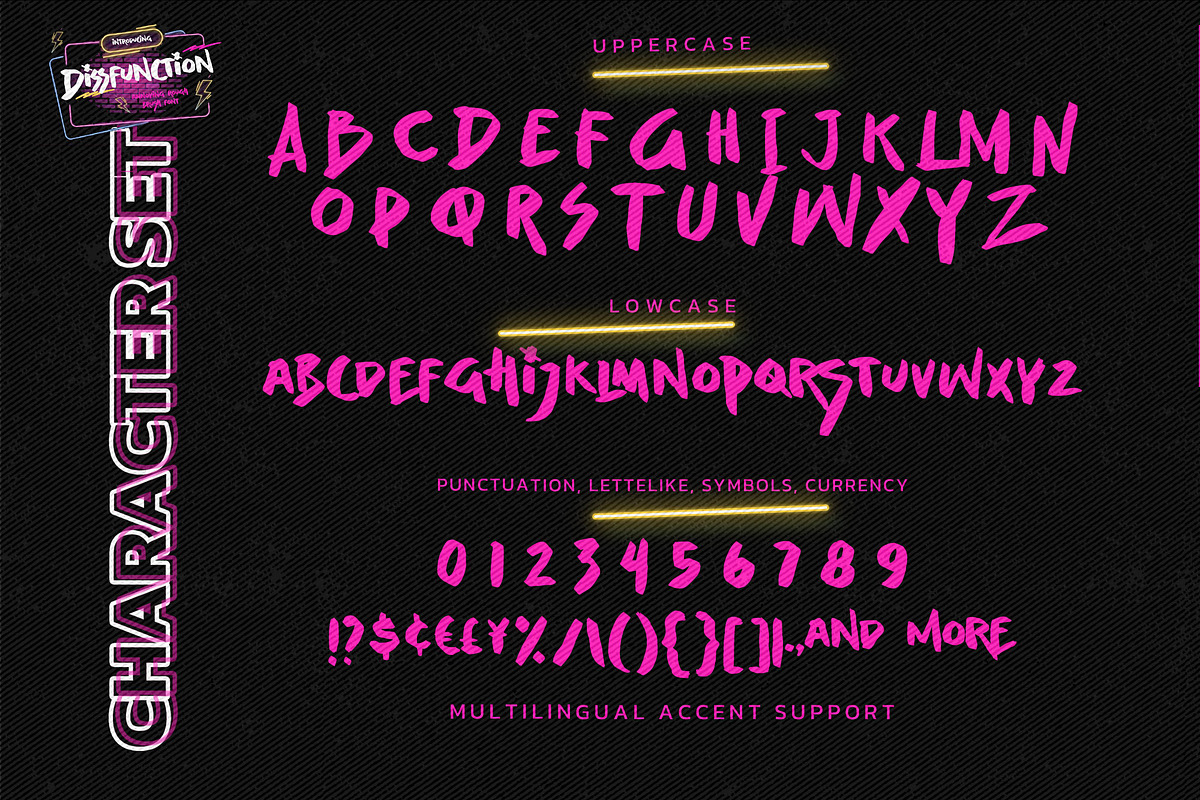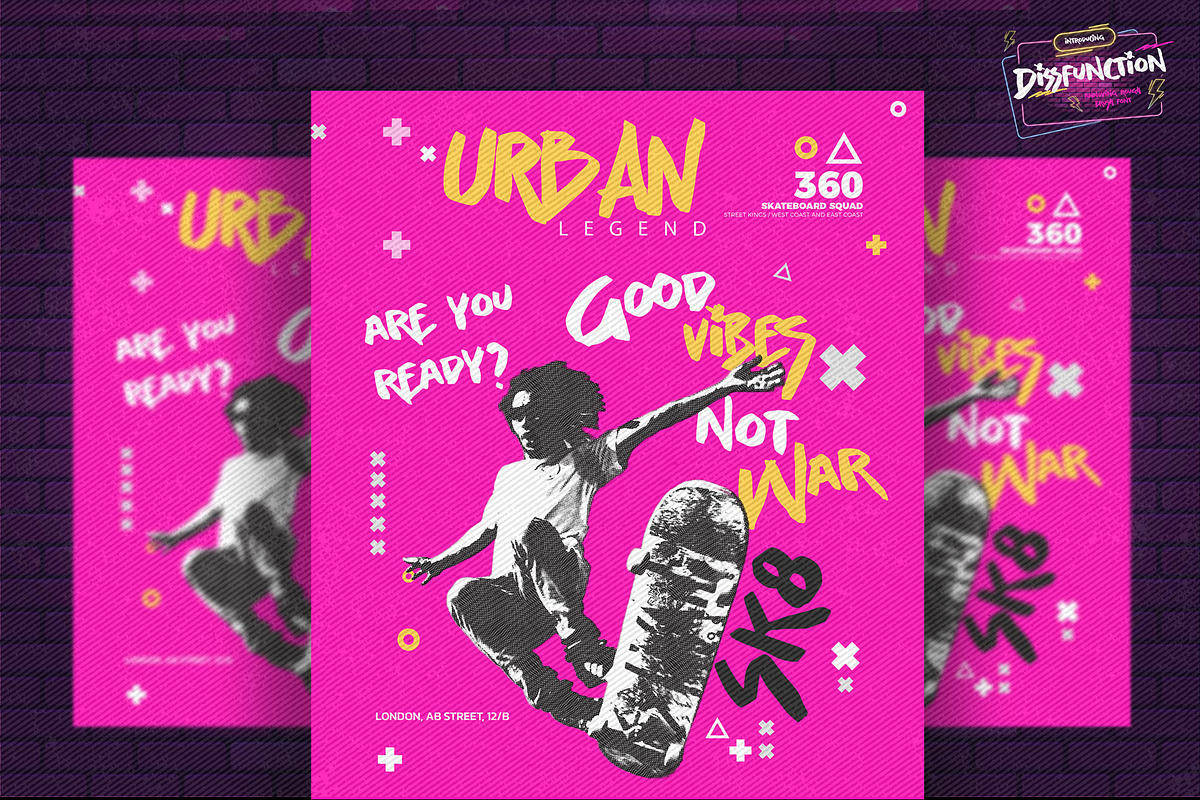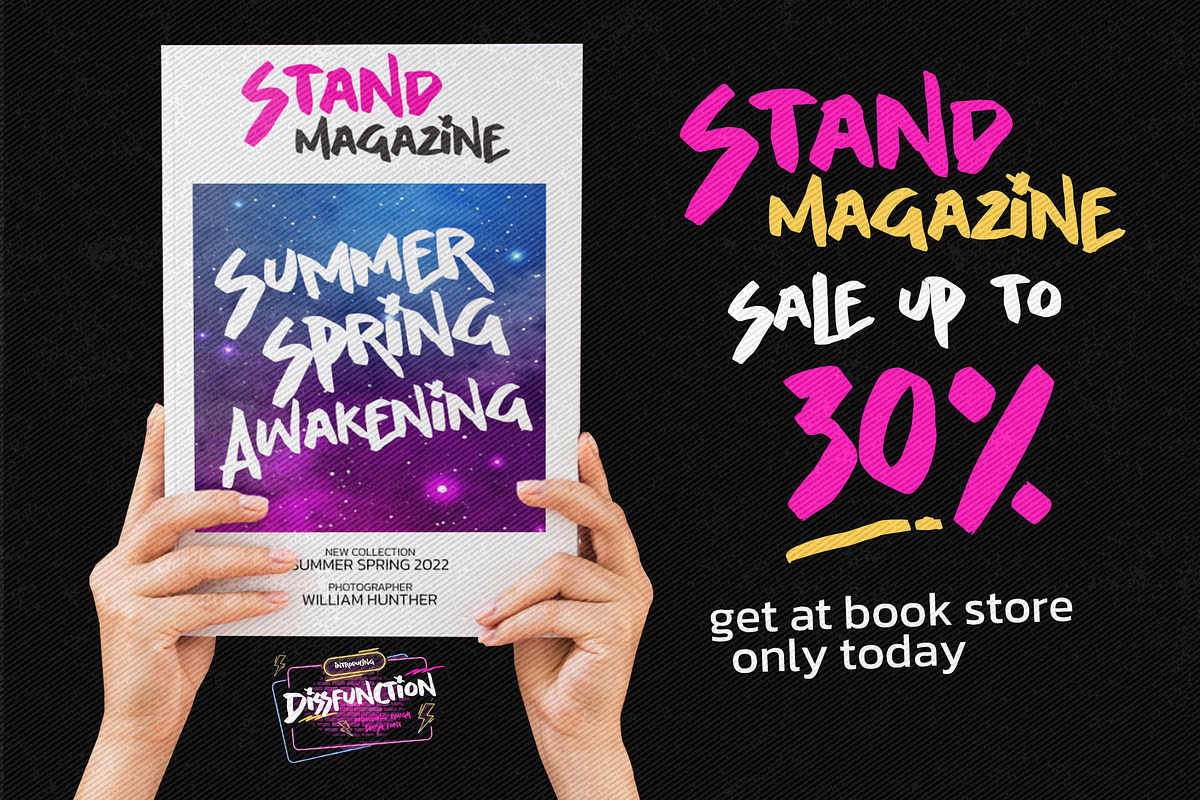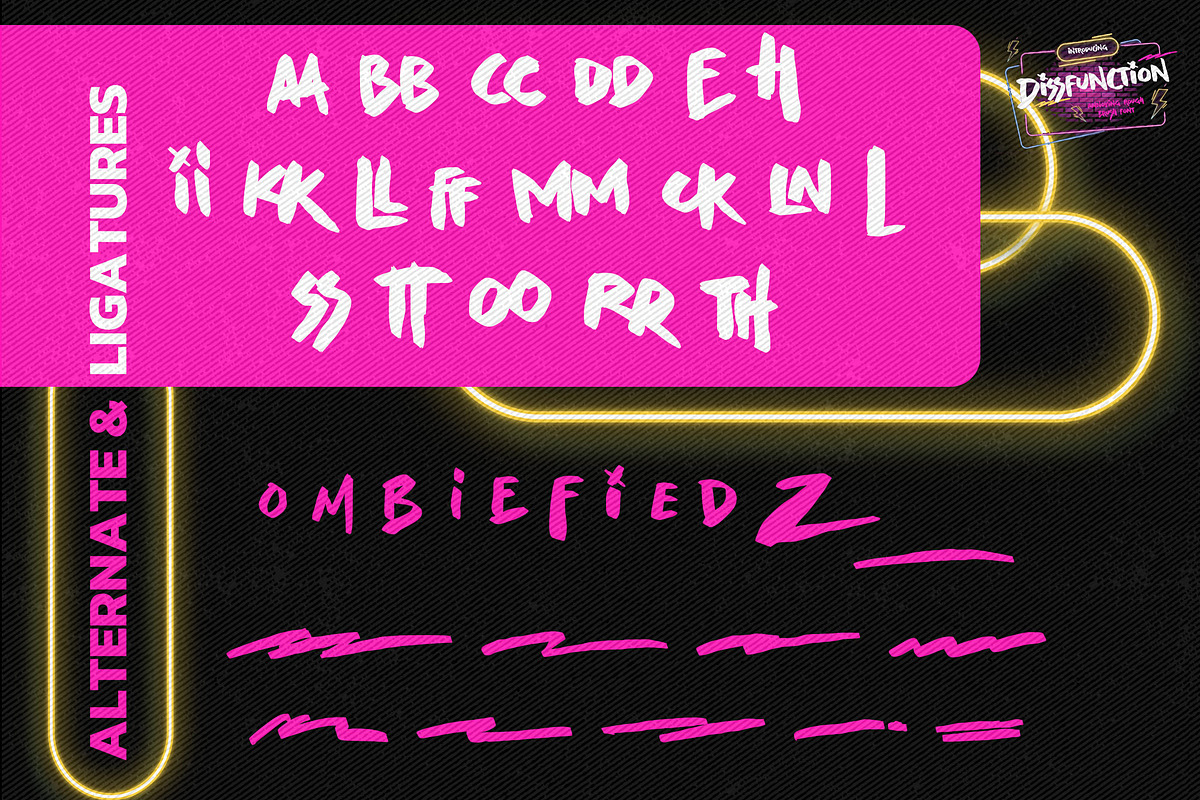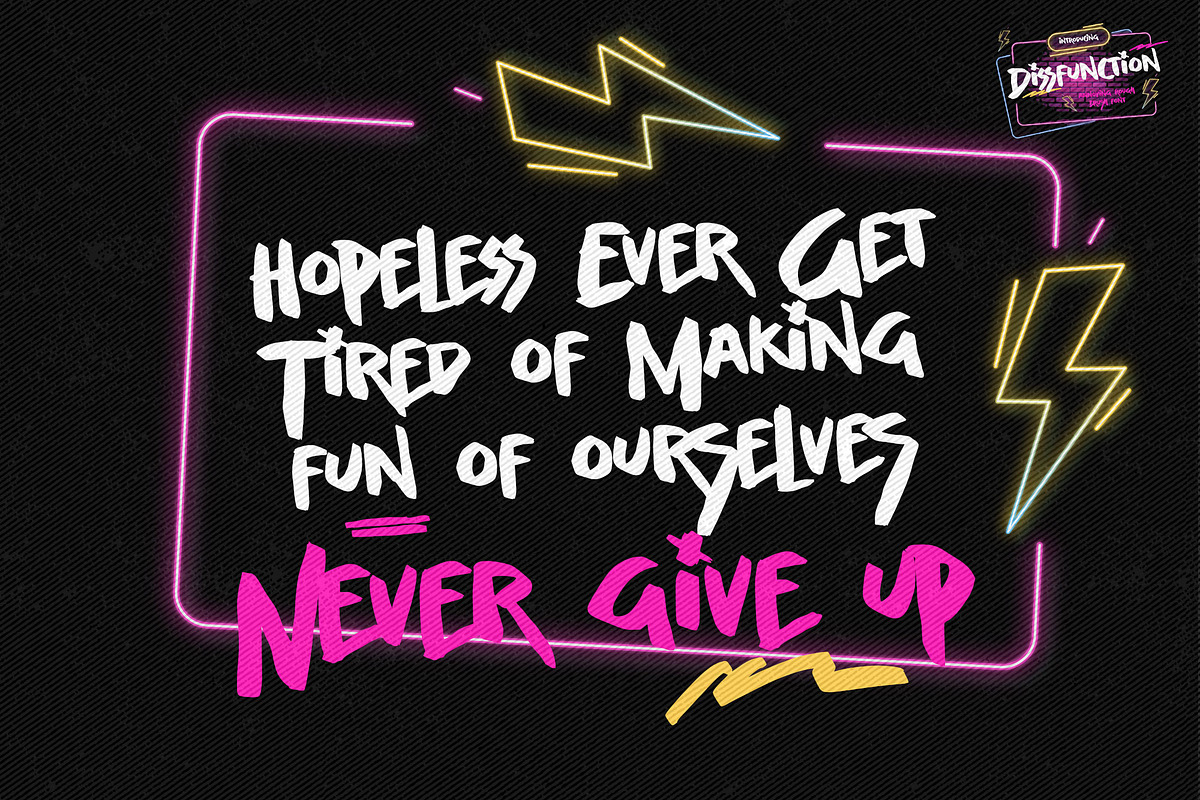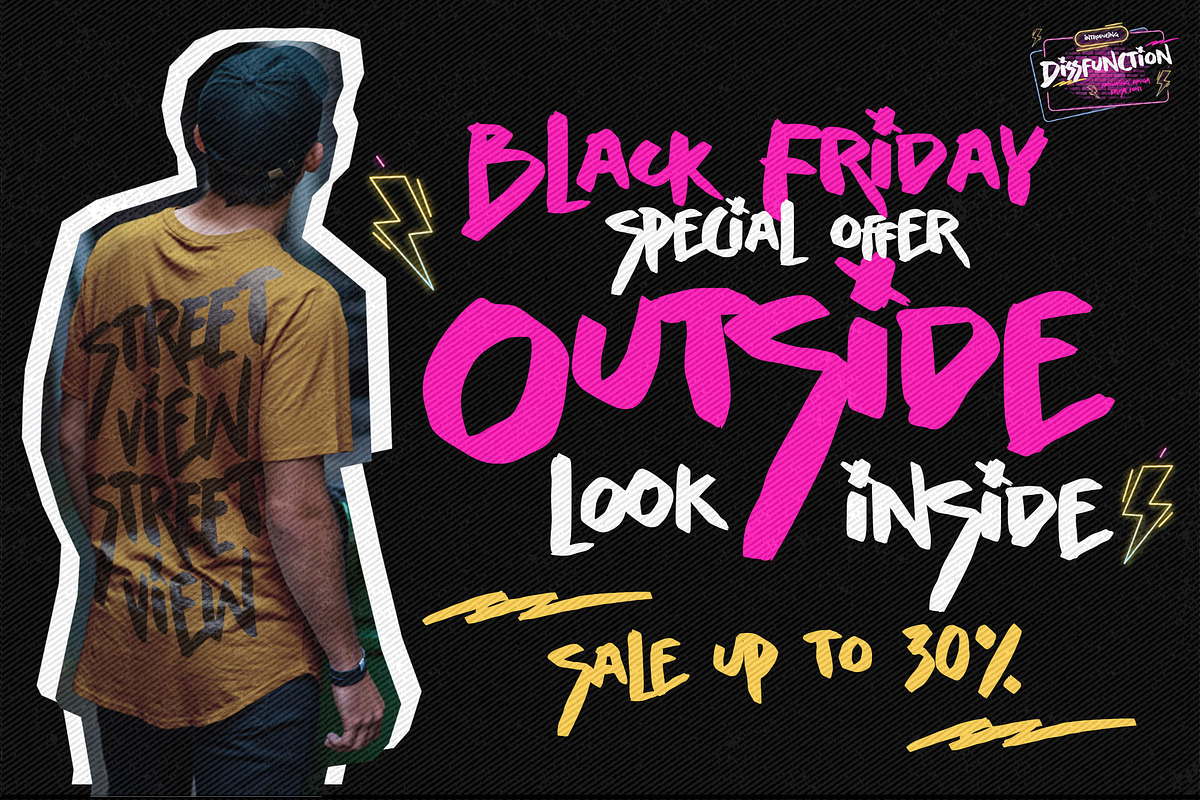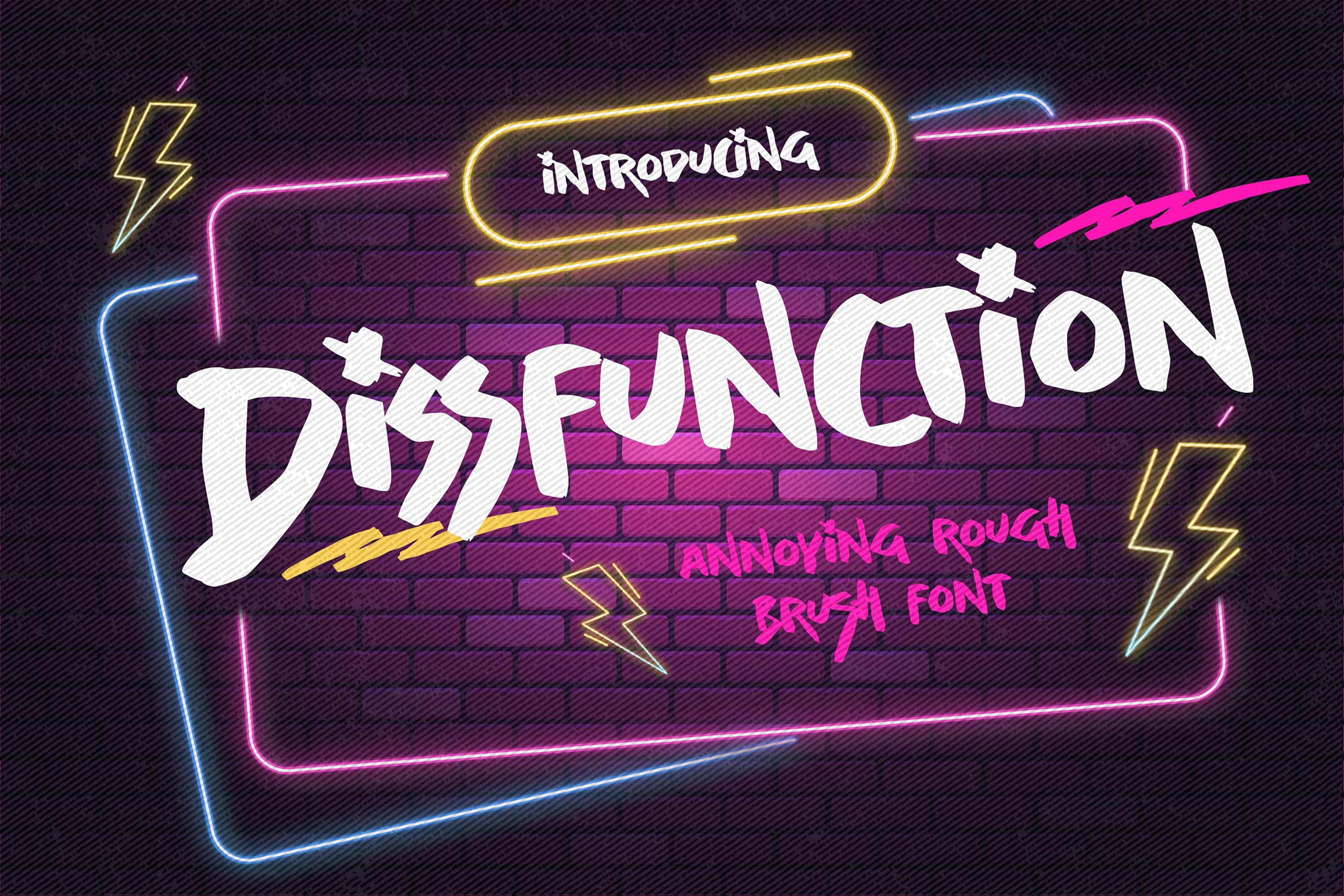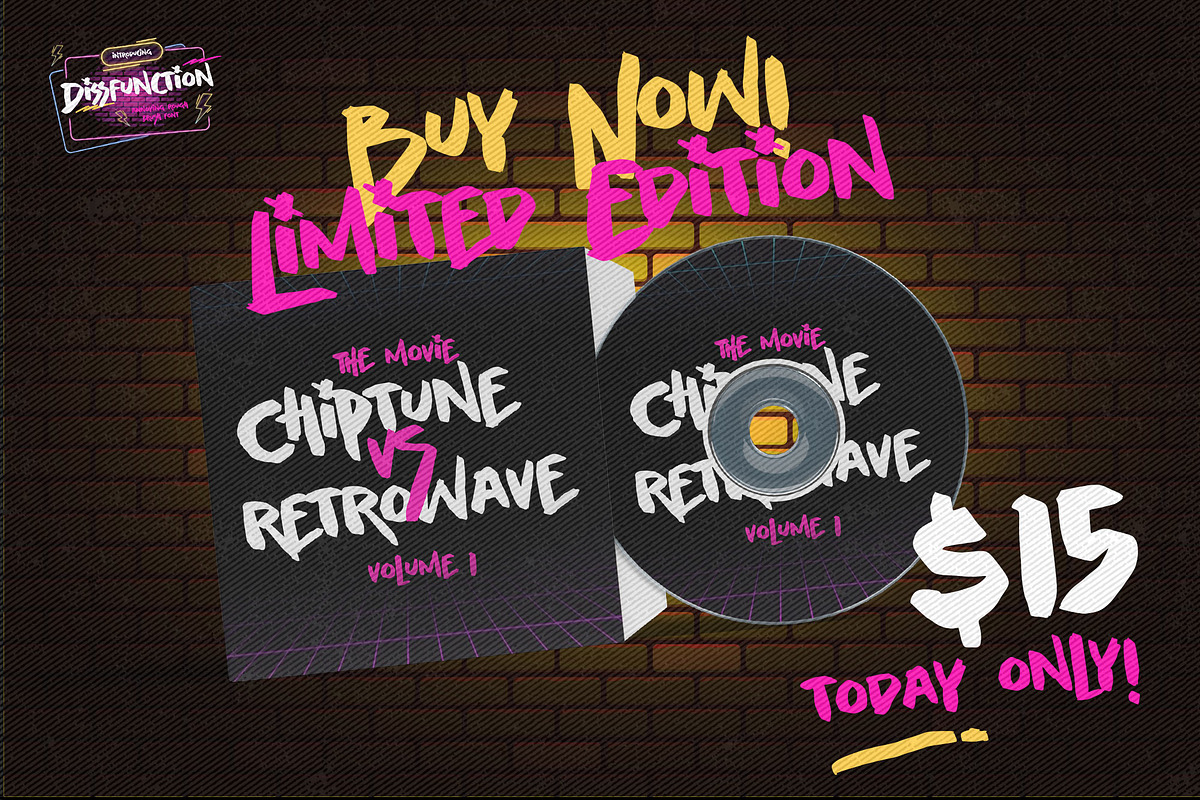
Dissfunction – Annoying Brush Font
Dissfunction is a bold and expressive brush font with a raw, urban feel. Featuring rough strokes and hand-drawn textures, this typeface is designed to make a strong visual statement. Its edgy and dynamic style brings energy and attitude to any design project.
Logos
Posters
Product packaging
Branding
Advertisements
Invitations
Stationery
Wedding designs
Labels
Photography watermarks
Quotes
And more